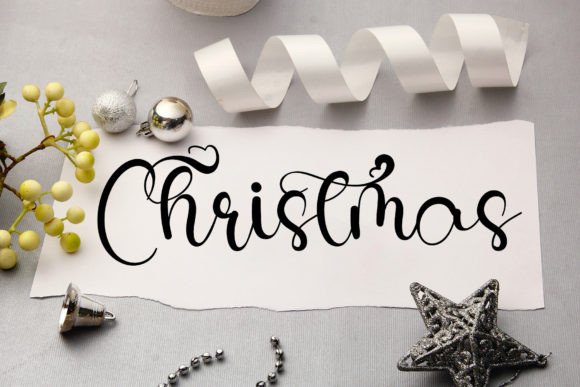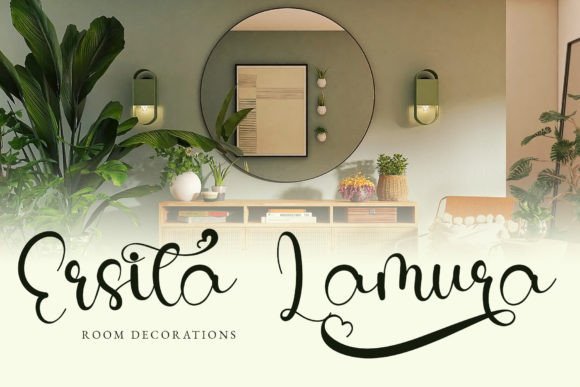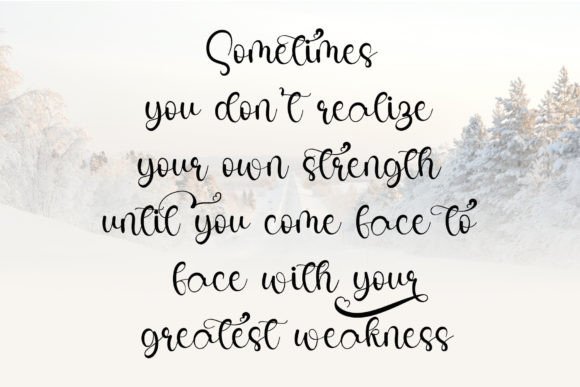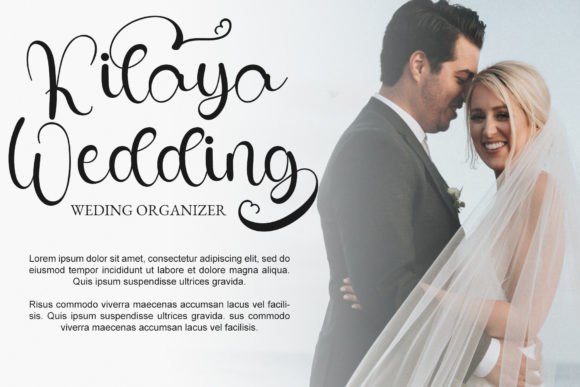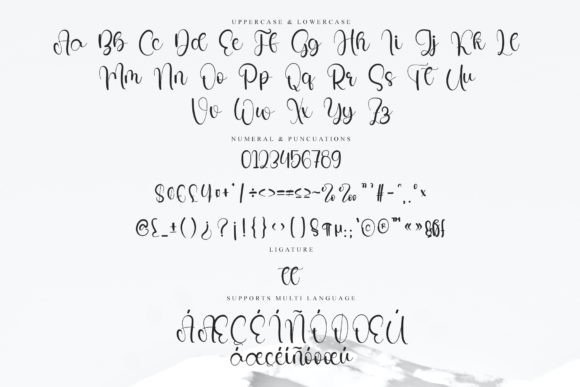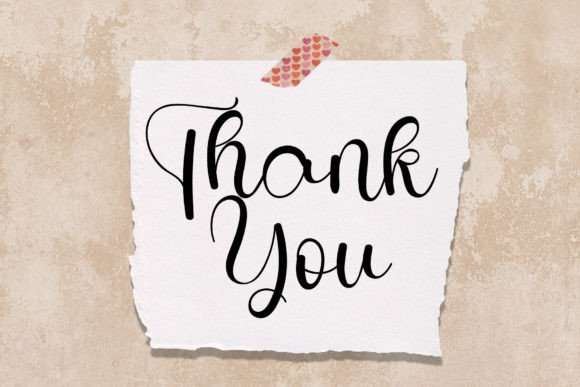
Introducing Declare Font: The Elegant Handwritten Typeface for Your Design Needs
In the world of typography, a well-crafted font can elevate your design from ordinary to extraordinary. If you’re a designer, craft, or simply someone who appreciates the art of beautiful writing, you’re in luck. Meet Declare Font, an elegant and delicate handwritten typeface that’s perfect for a wide range of design applications.
What is Declare Font?
Declare Font is a stunning handwritten typeface that’s designed to add a touch of sophistication and elegance to your designs. With its delicate strokes and refined lines, this font is ideal for creating beautiful and eye-catching visuals. Whether you’re working on a logo, branding project, social media post, advertisement, business card, or wedding invitation, Declare Font is the perfect choice.
Key Features of Declare Font
- PUA Encoded: Declare Font is PUA (Private Use Area) encoded, which means you can access all of the glyphs and alternates with ease. This feature makes it easy to customize your text and create unique designs.
- Elegant and Delicate: The font’s elegant and delicate strokes make it perfect for designs that require a touch of sophistication.
- Handwritten: Declare Font is a handwritten typeface, which gives it a personal and authentic feel.
- Versatile: This font is suitable for a wide range of design applications, from logos and branding to social media posts and wedding invitations.
Design Applications for Declare Font
Declare Font is a versatile typeface that can be used for various design projects. Here are some ideas to get you started:
- Logos and Branding: Create a stunning logo or brand identity with Declare Font. Its elegant strokes and refined lines make it perfect for businesses that want to convey a sense of sophistication.
- Social Media Posts: Add a touch of elegance to your social media posts with Declare Font. Use it to create eye-catching graphics, quotes, or promotions that will grab the attention of your followers.
- Advertisements: Declare Font is perfect for creating beautiful and effective advertisements. Use it to create print ads, flyers, or brochures that will stand out from the crowd.
- Business Cards: Create a lasting impression with Declare Font on your business cards. Its elegant strokes and refined lines make it perfect for professionals who want to convey a sense of sophistication.
- Wedding Invitations: Declare Font is a beautiful choice for wedding invitations. Its delicate strokes and refined lines make it perfect for creating romantic and elegant wedding stationery.
- Product Design: Use Declare Font to create stunning product designs, such as packaging, labels, or product labels.
Why Choose Declare Font?
- Unique and Elegant: Declare Font is a unique and elegant typeface that’s sure to stand out from the crowd.
- High-Quality: This font is designed with high-quality and precision, ensuring that it looks great in any design application.
- Easy to Use: Declare Font is PUA encoded, making it easy to access all of the glyphs and alternates.
- Versatile: This font is suitable for a wide range of design applications, making it a great addition to any designer’s toolkit.
In conclusion, Declare Font is a beautiful and elegant handwritten typeface that’s perfect for designers, crafters, and anyone who appreciates the art of beautiful writing. With its delicate strokes, refined lines, and PUA encoding, this font is sure to elevate your designs to the next level. Whether you’re working on a logo, branding project, social media post, or wedding invitation, Declare Font is the perfect choice.